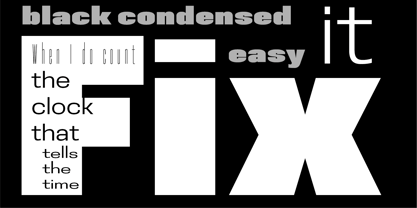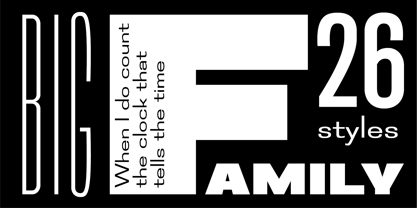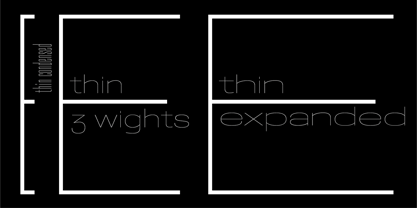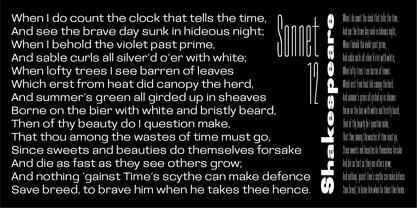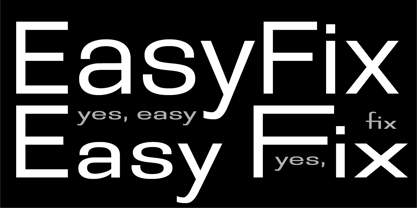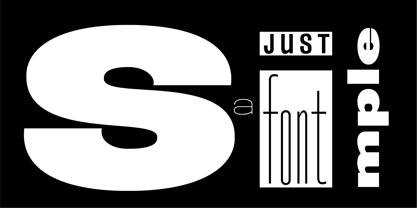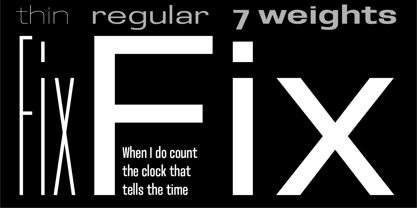
Easy Fix
von Letterhead Studio-YG
Die Schriftfamilie Easy Fix wurde von Yuri Gordon entworfen und von Letterhead Studio-YG veröffentlicht. Easy Fix enthält 26 Stile und Familienpaketoptionen. Mehr über diese Familie
EasyFix is ​​a family based on the variable font EasyFlex. These are very simple sans-serifs, evolving along three axes: weight, width, and lowercase height. For the static styles, I chose three lowercase heights: low, approximately 1/3 the height of capital letters, normal, and unicase. EasyFix is ​​slightly square and slightly naive. Texts with it appear more lively than standard modern plastic sans-serifs. All styles include Cyrillic. The EasyFix family can handle a wide range of typographic tasks, from simple text to complex design and branding. But if you want the finest customization, especially in lowercase sizes, I recommend the variable EasyFlex.
Designer: Yuri Gordon
Foundry: Letterhead Studio-YG